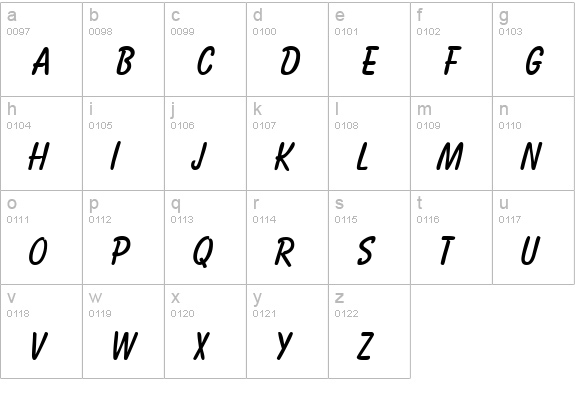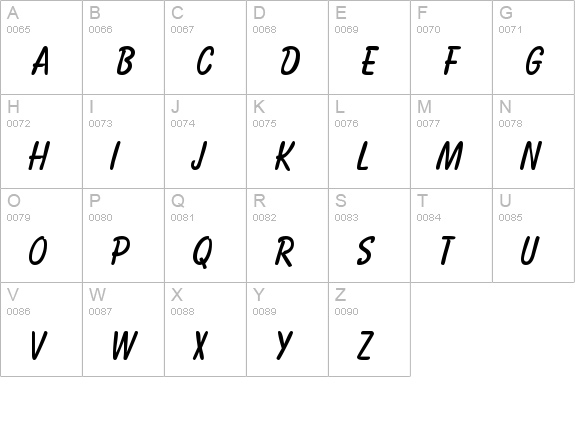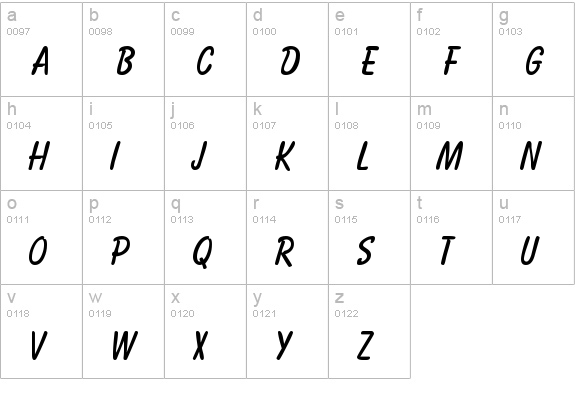
BalloonTwo-Regular is the standard, neutral variant in the BalloonTwo typeface family \xE2\x80\x94 well suited to general body text, paragraphs, and standard typographic work.
BalloonTwo-Regular font is a charming and whimsical typeface that is perfect for adding a touch of playfulness to your designs. Its rounded edges and slightly irregular letterforms give it a fun and friendly appearance, making it ideal for a variety of creative projects. Whether you're designing invitations, greeting cards, or posters, BalloonTwo-Regular font will bring a cheerful and lighthearted feel to your work. Best of all, BalloonTwo-Regular font is available for free download at FontsMarket.com. This means you can easily access this delightful typeface to enhance your designs without any cost. Don't miss out on the opportunity to add a touch of fun to your projects with BalloonTwo-Regular font!